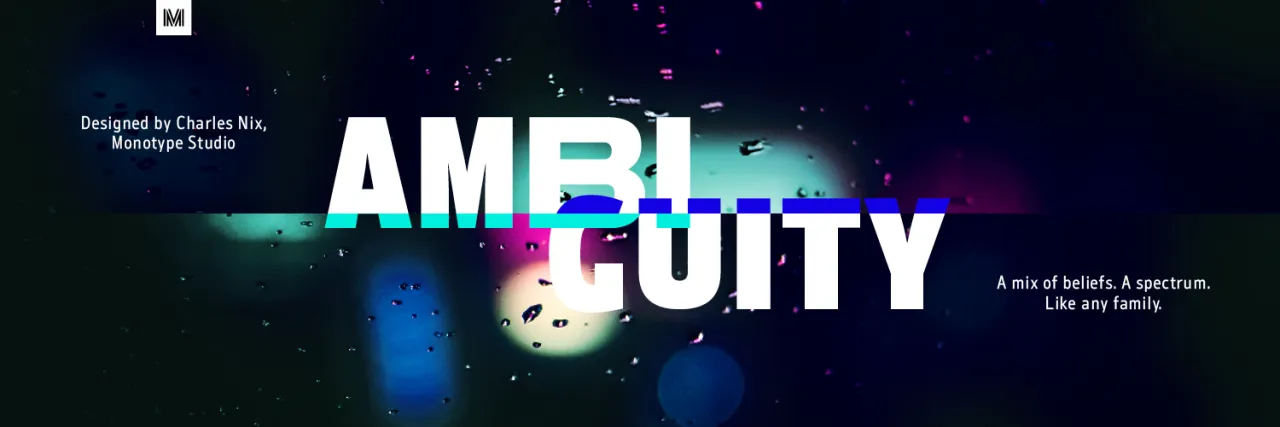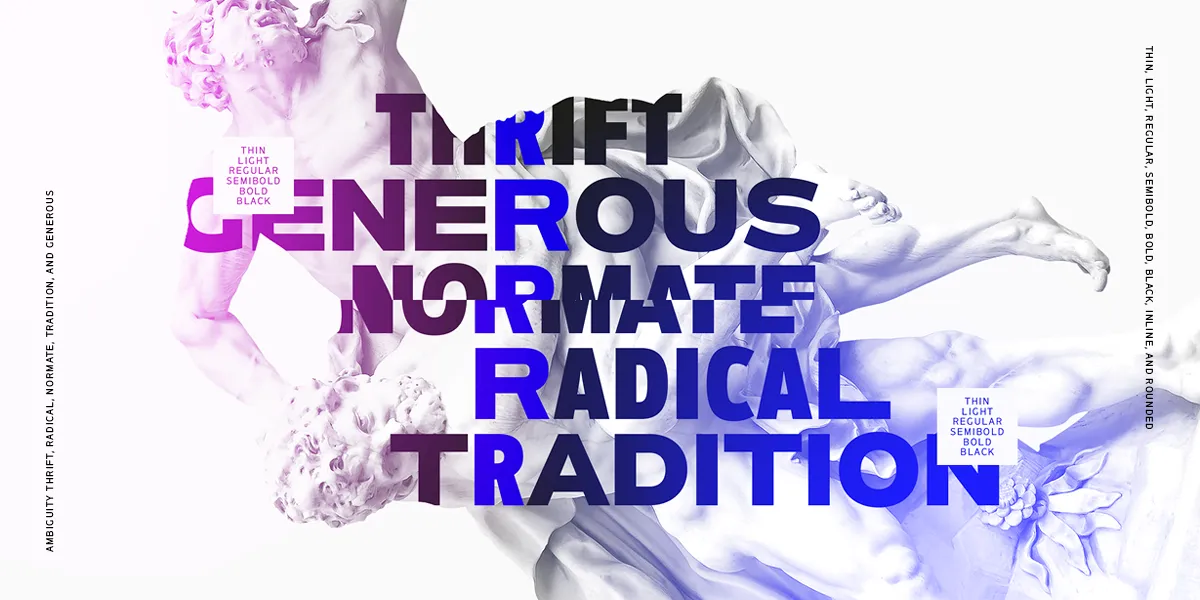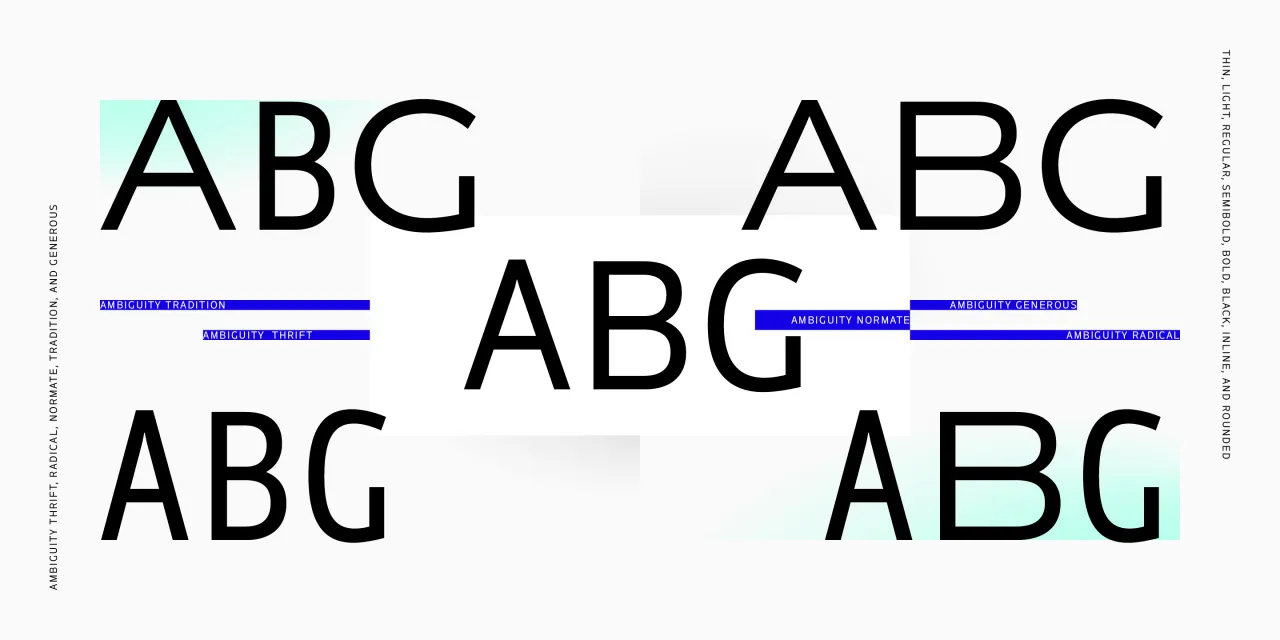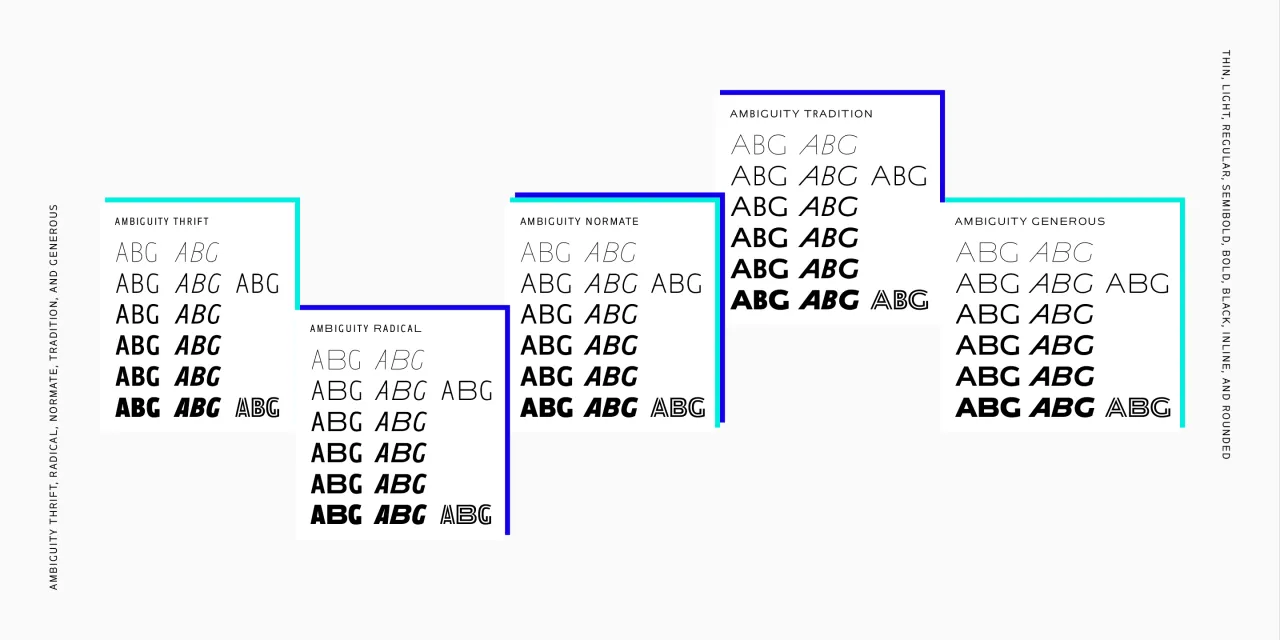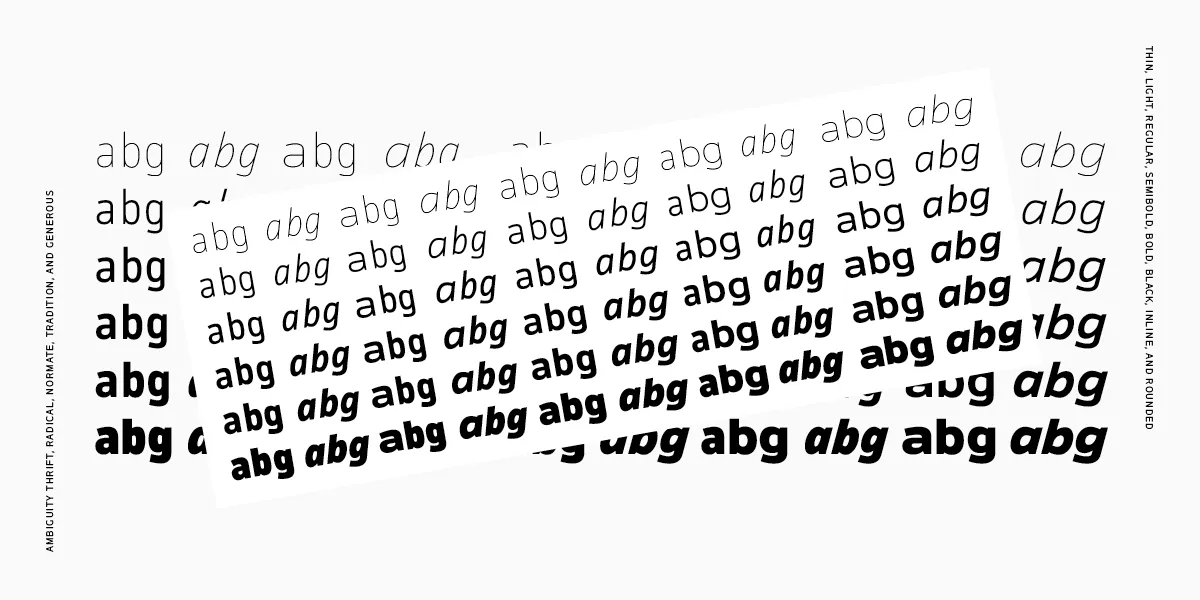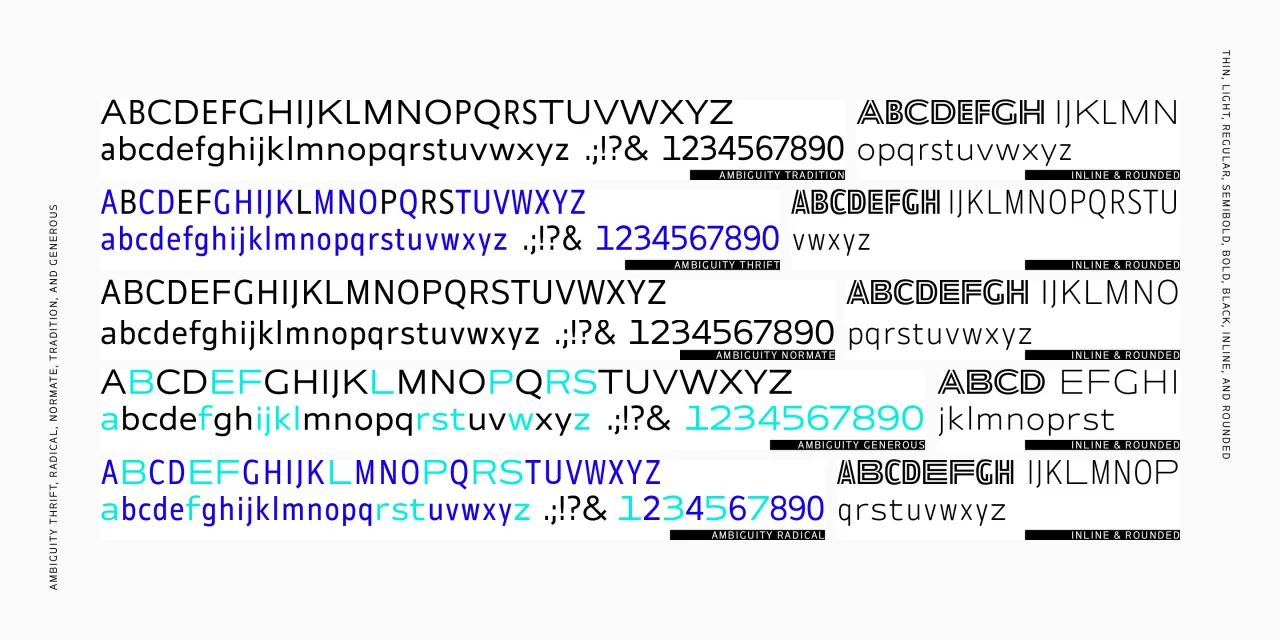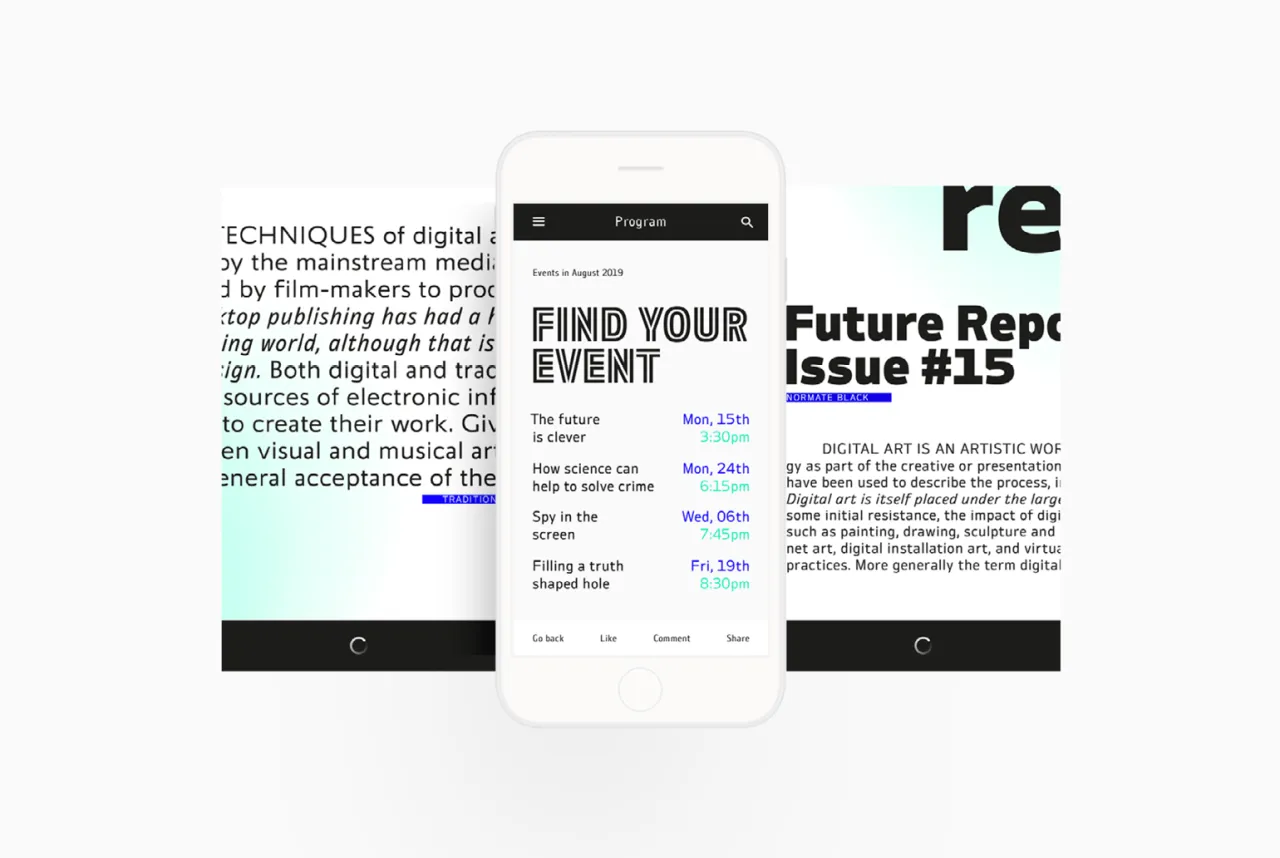
Monotype's next typeface Ambiguity is contentious, confrontational and contrarian
Following on from the launch of its Helvetica Now typeface, Monotype has today released Ambiguity – inspired by questioning how designers should respond to typography’s esteemed history.
Should we follow tradition, or react against it? And with the contemporary political climate defined by division now more than ever, how can the design community remain relevant to such a multitude of perspectives? Charles Nix, the designer behind the new typeface, has an answer.
Ambiguity aims to celebrate both upholding the tenets of good type design and react against them. Featuring five different states – Tradition, Radical, Thrift, Generous and Normate – it offers a range of perspectives across the spectrum from conformist to contrarian.
As the name might suggest, Tradition follows the accepted norms of modernist type design. In contrast, Nix has challenged these values with Radical, a direct inversion of Tradition’s proportions. Thrift is a variation of the typeface that includes all the slender letters, creating a lean, economical typeface. While Generous brings together all the wide forms, with an extravagant, lavish feel. But Normate is a mixture of a very different ilk. The synthetic blend of all four cuts, it’s a perpetual fence-sitter that tries to meet all viewpoints in the middle.
Part intellectual exercise, part challenge to today’s designers, Ambiguity's unconventional design choices mean you can be as conservative or radical as you need to be.
Why Ambiguity now? It’s a tool for fighting polarisation, for breaking down walls, apparently. For deconstructing silos. Can a typeface do all of that? No. Of course not. Not on its own. But it can remind us of how important that dialogue is – and it can look good doing it. We spoke to Nix about this and more.
So your last major typeface, Helvetica Now, is connected to traditional ideas of font design – how did the debates around this influence your thinking here?
Yes. Helvetica Now is a very traditional design, but it's a relative newcomer in relation to the ideas I'm exploring in Ambiguity Tradition. Ambiguity Tradition's proportions are referencing 2000-year-old inscriptional forms and 500-year-old calligraphic forms. Helvetica's proportions come from early 19th-century serif letters—specifically, though circuitously, Walbaum’s modern designs.
And then there's the flopped timeline. My first sketches for the Ambiguity concept are from late 2016 and early 2017. The beginnings of my involvement with Helvetica was still a year off. Jan Hendrik Weber alone was pushing the Helvetica Now project along at that point.
But all of that preamble aside, what I discovered in the early stages of Ambiguity was that Helvetica-esque grotesque proportions were latent and lurking between the Tradition and Radical. I had created a variable font with a Traditional-to-Radical slider/axis, and dialled-in a mid-way design.
That midpoint, half traditional and half contrarian, was the synthetic blend that eventually became Ambiguity Normate. It's not necessarily logical, but it is an interesting non-historical typographic space into which to insert Helvetica and other grotesques.
Incidentally, while variable fonts and the variable font format were essential tools in the development of Ambiguity, ultimately we decided to release it as individual OpenType "expressions" of the full variable spectrum to make it easier to use. It will become a variable font again—when the graphic-design tools and time are right.
Are designers too afraid to break boundaries and traditions?
Some are. Some aren't. Some clients are, and some clients aren't. And not breaking boundaries and traditions, to my mind, is not a bad thing. I'd be hypocritical if I said it was—having worked on both Walbaum and Helvetica revivals/restorations. Working within traditions and boundaries doesn't preclude critical thinking.
Of those who are afraid, where does this come from?
Fear may have something to do with sameness and lack of creativity in design, but being tired may be just as much to blame. It's simply easier not to think critically, not to question the content and form, and to apply design as a style. In respect to that, Ambiguity is a prompt rather than an answer. It's not a "use this voice" solution, but rather a voice asking "have you considered the visual voice?"
Have opinions become so loud online that it's almost paralysed creativity?
The critics have always been there. All of them. But now they have a big mouthpiece. Can they cause paralysis? I'm not so sure. Graphic designers have historically avoided the level of critical scorn heaped on architects and artists (and actors and athletes), but the public is now more aware of graphic design and branding. It's taken seriously. It's seen as an important component of culture. With that awareness comes criticism.